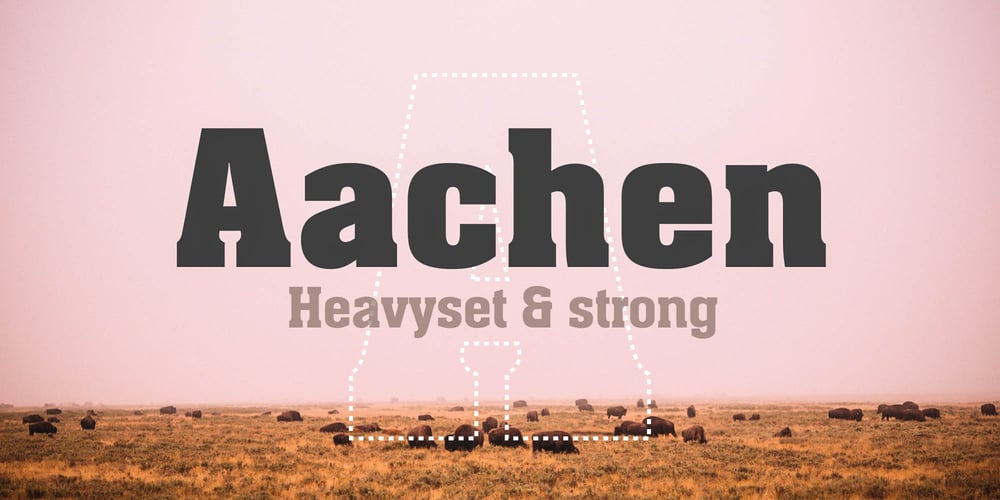
Aachen Font Family was designed by Colin Brignall, Alan Meeks and published by ITC. Aachen contains 2 styles and family package options. Note: Neue Aachen is an updated and expanded version of Aachen featuring 18 fonts! The Aachen™ typeface design is a thick slab serif created by Alan Meeks at Letraset, type directed by Colin Brignall. Aachen only comes in two weights: medium and bold. This strong typeface features sharp outlines, stubby serifs and heavy strokes for use in headlines, posters, signage, apparel and other display uses (24 point size and above).